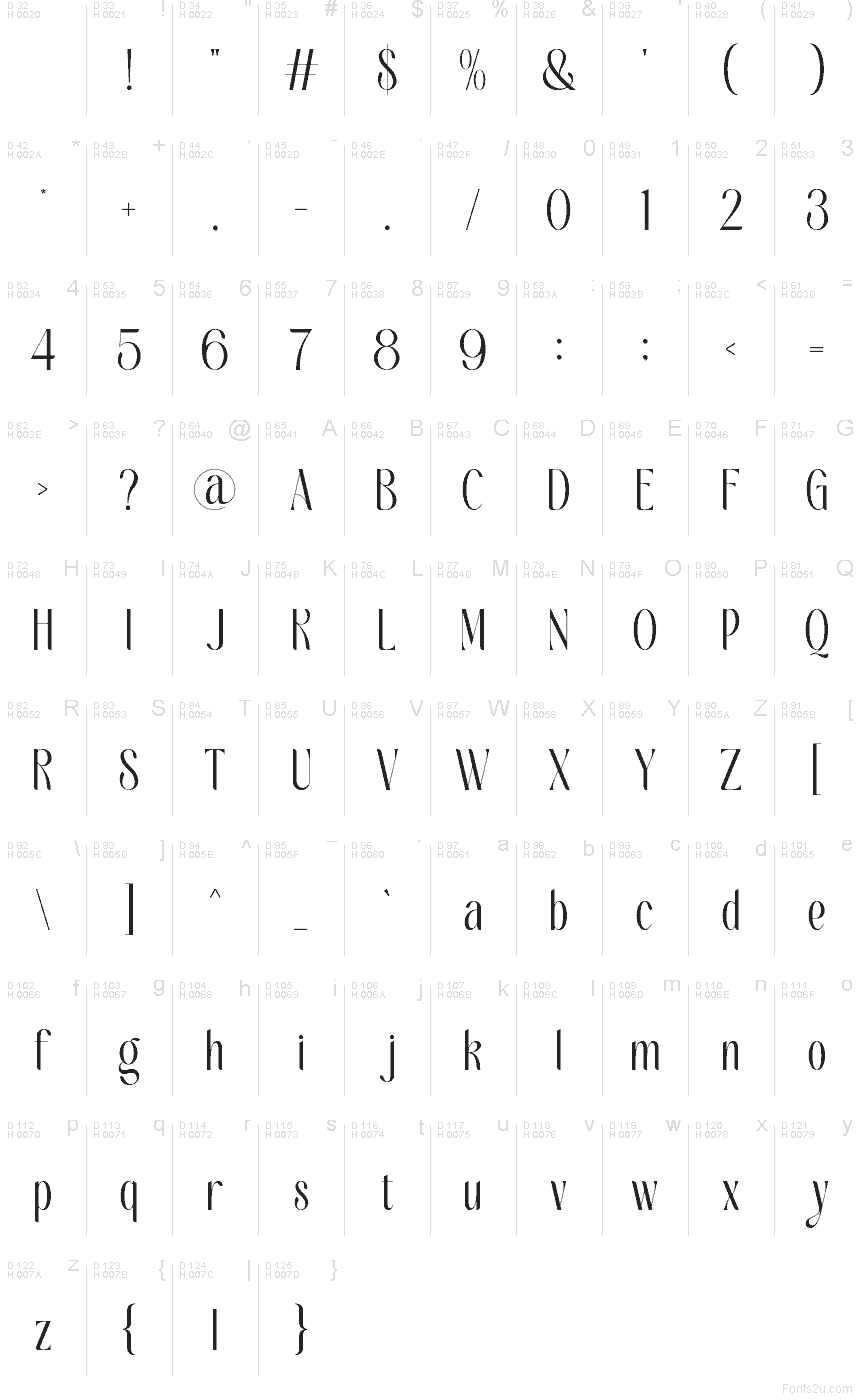
Zenora Regular
Zenora font by ErmediaStudio is a free serif typeface with a rakish, fashion-forward edge. Its ultra-slim verticals and inky, expanded curves create a dramatic rhythm that feels both sharp and fluid, like ink pulled with a calligrapher’s knife. The letters stand tall and poised, with generous white space that lets every word breathe while still feeling luxuriously dense on the page.
Using Zenora, you get a statement serif that shines on fashion branding, beauty packaging, magazine covers, posters, invitations, and bold logo wordmarks. This free font loves big sizes where its sculpted shapes can really stretch out, while a simple sans like a clean grotesk works beautifully as a supporting text face.